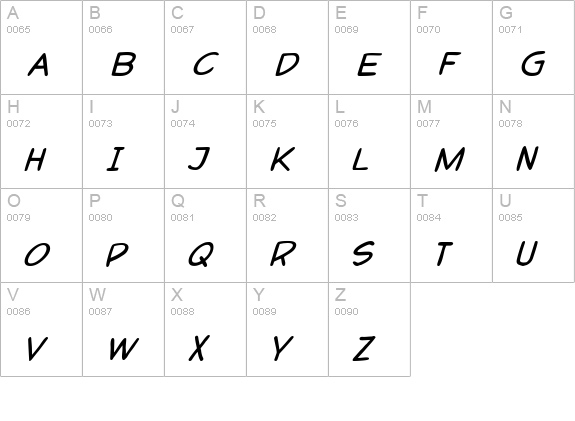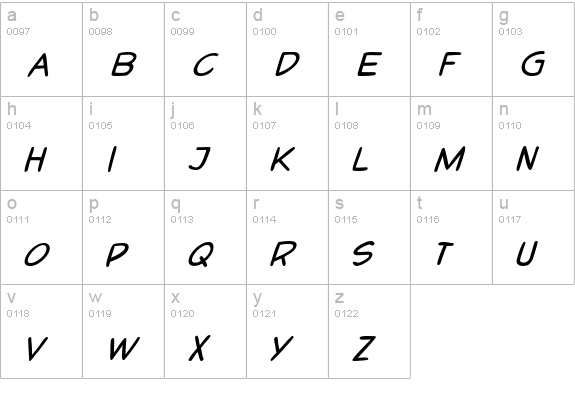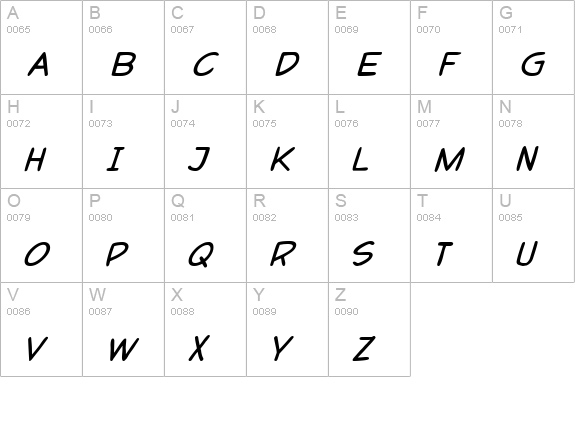
P22 Pop Art Comic Bold Italic Font Details
P22 Pop Art Comic Bold Italic is a strong, high-contrast, italic variant in the P22 typeface family \xE2\x80\x94 well suited to headlines, attention-grabbing titles, and strong calls-to-action.
P22 Pop Art Comic Bold Italic font is an electrifying and dynamic typeface that captures the essence of the iconic Pop Art movement. With its bold strokes and playful curves, this font exudes a sense of vibrant energy and modernity, making it the perfect choice for any project that demands attention and a touch of artistic flair. This font is designed with the utmost care and attention to detail, ensuring that each letter is meticulously crafted to evoke the spirit of comic book art. The italic styling adds a sense of movement and excitement, giving your text a dynamic and lively appearance. Whether you're creating a poster, comic book, or any other creative project, P22 Pop Art Comic Bold Italic font will make your text pop off the page and grab the reader's attention. Its versatility allows it to be used in various contexts, from advertising and branding to web design and packaging. One of the best things about P22 Pop Art Comic Bold Italic font is that it is freely available to download at FontsMarket.com. This means that you can easily access and use this font for your personal and commercial projects without any restrictions. It's a fantastic opportunity to add a touch of Pop Art style to your designs, without having to worry about any additional costs. So why wait? Download P22 Pop Art Comic Bold Italic font today and unleash your creativity with this bold and expressive typeface. With its eye-catching design and freely available nature, this font is sure to become a go-to choice for designers and artists alike.